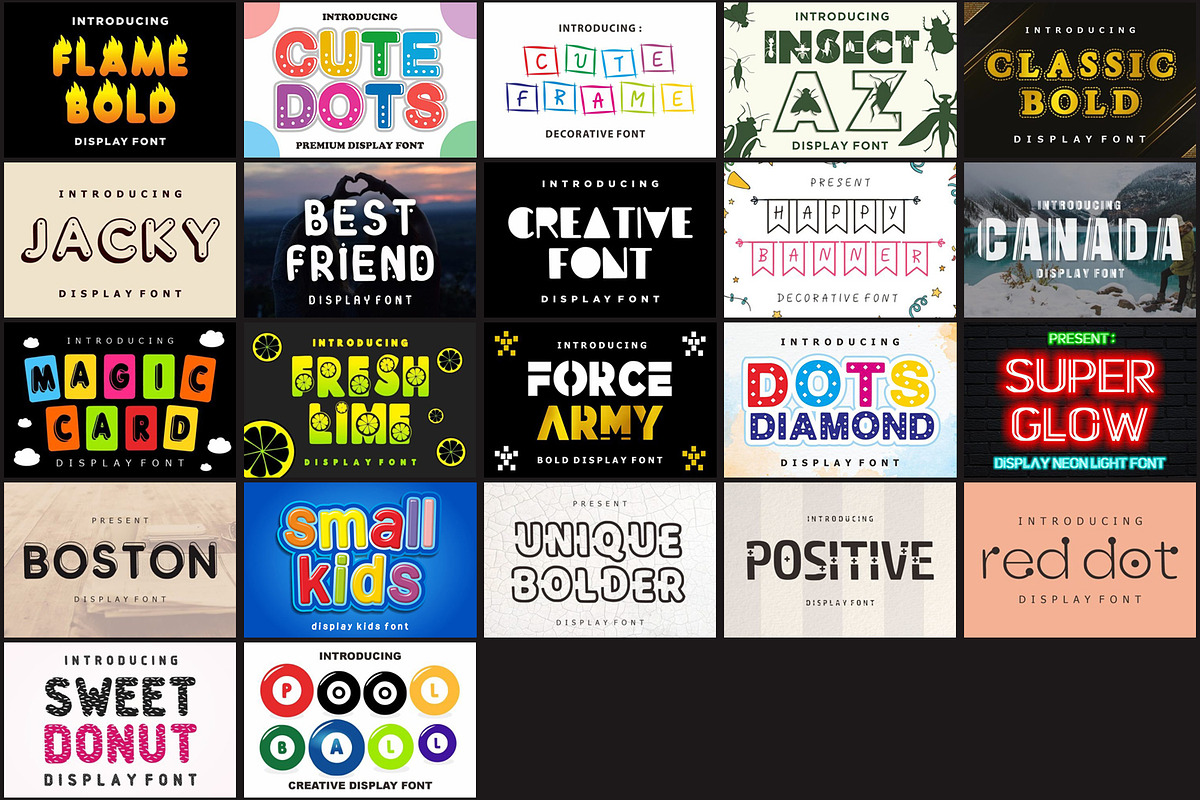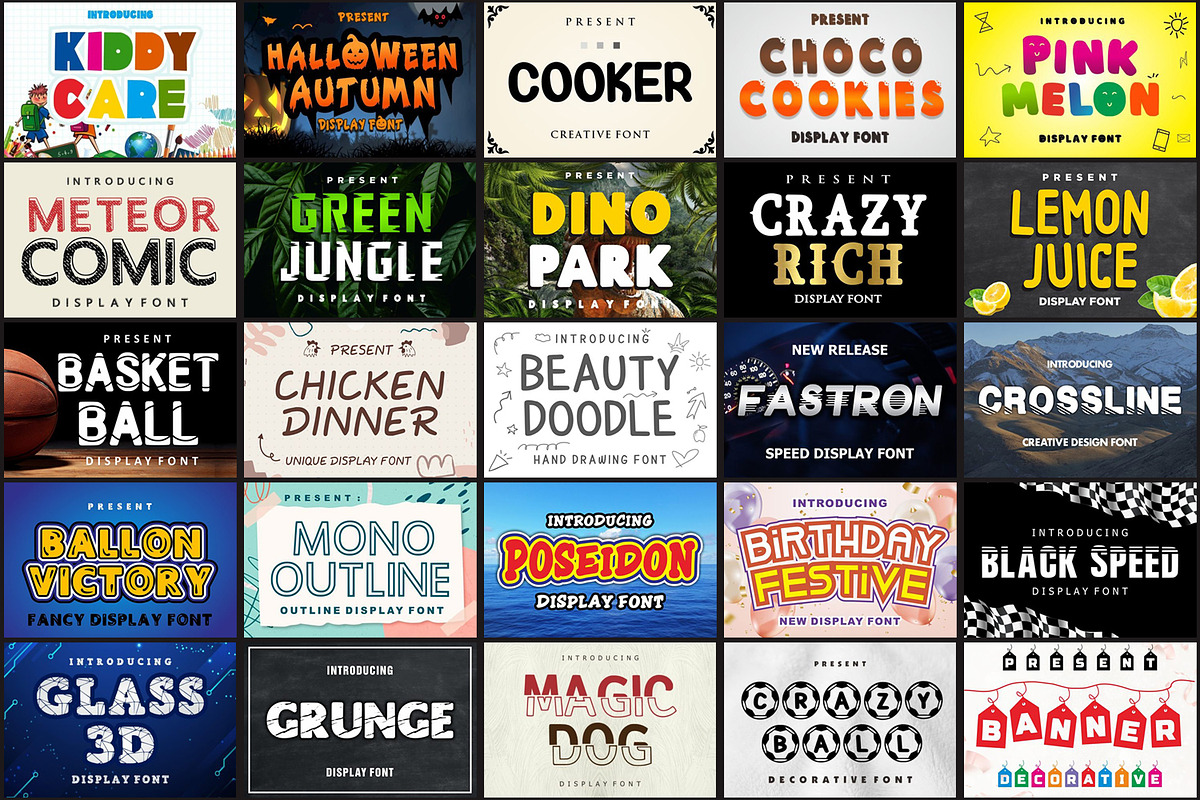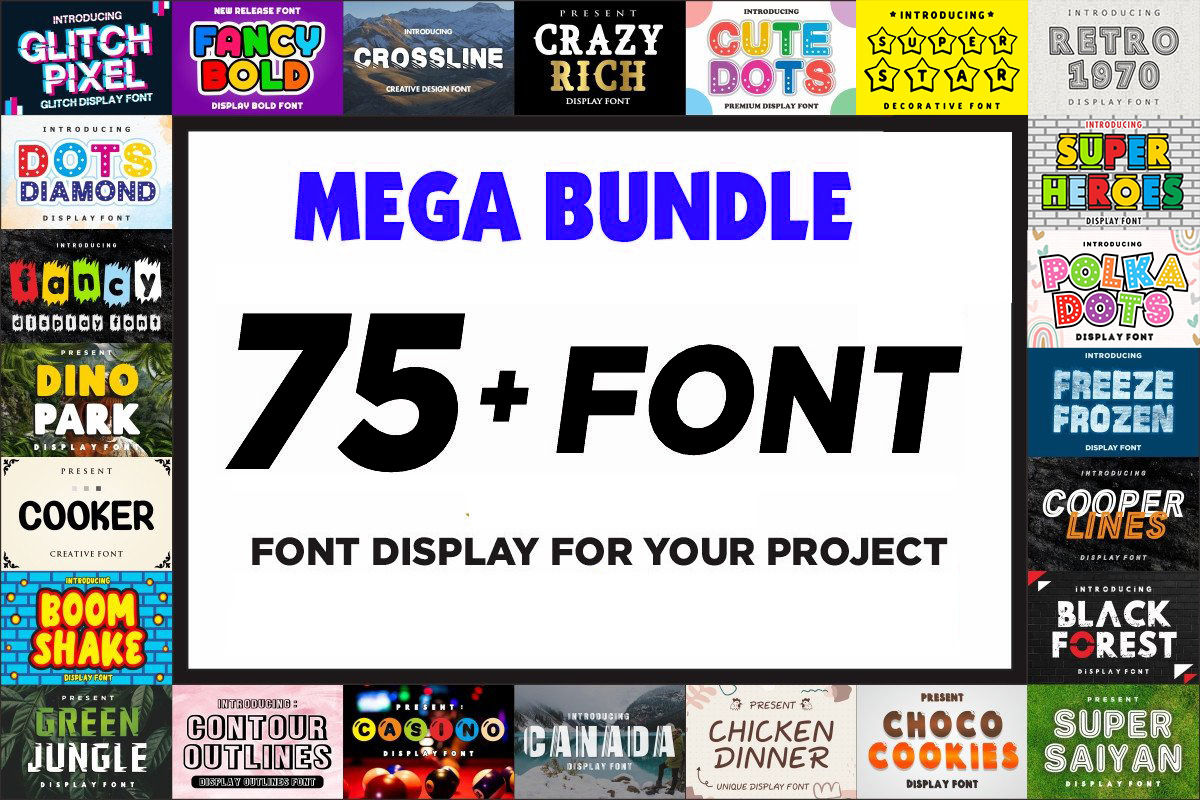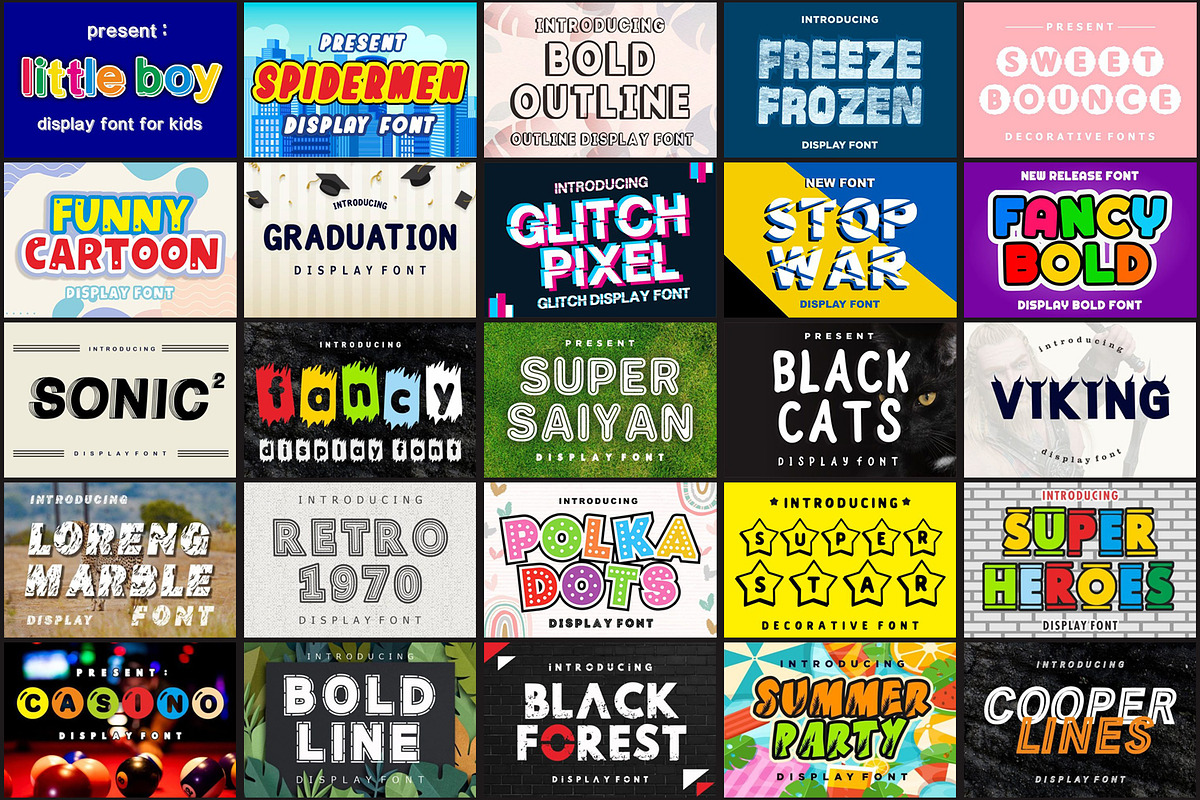
Colorful Display Font Bundle
Elevate your creative projects with the Colorful Display Fonts Pack, a vibrant collection of 76 high-quality display fonts designed to meet all your crafting and design needs. Perfect for both personal and commercial use, this versatile pack is ideal for creating eye-catching greeting cards, elegant invitations, engaging social media posts, professional logos, and so much more!
Each font in this pack has been carefully curated to offer a unique style, ranging from playful and whimsical to sleek and modern. Whether you're a DIY enthusiast, a graphic designer, or a small business owner, these fonts will add a pop of personality and professionalism to your projects.